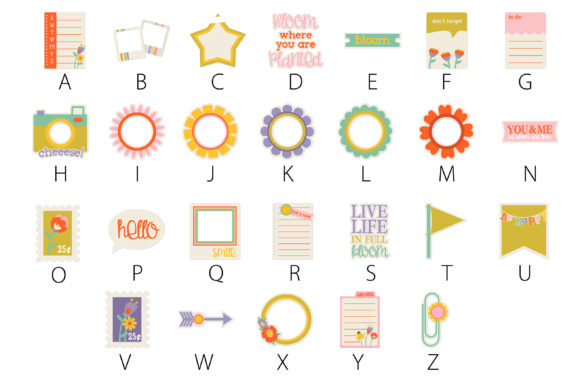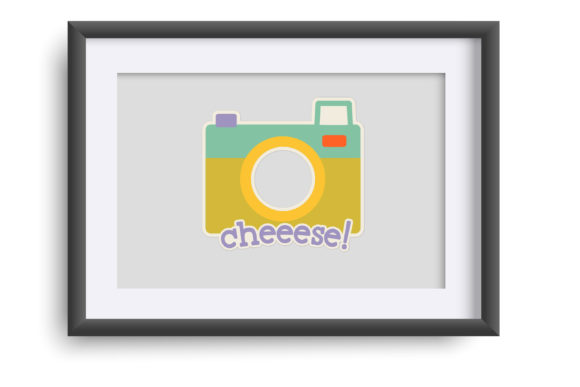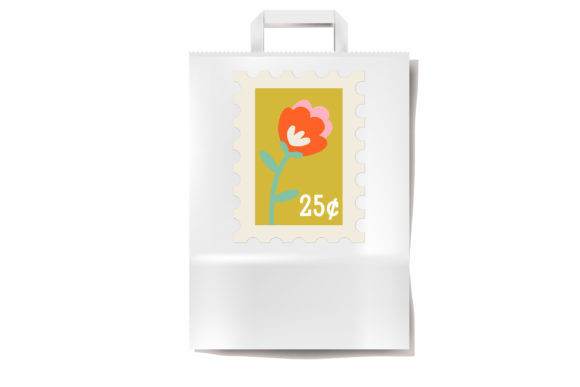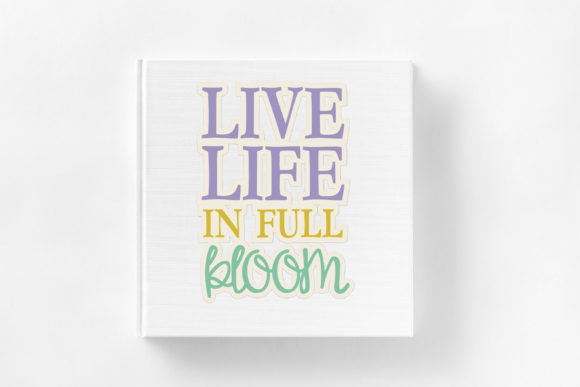
Bloomies Notes Font: Elevate Your Designs with Journaling Elements
Are you a designer or crafter looking for a unique and creative way to add a personal touch to your projects? Look no further than the Bloomies Notes Font, a full-color dingbat font that features journaling elements to match the popular Bloomies full-color dingbat. In this article, we’ll explore the features and benefits of this exciting font, and provide tips on how to get started with using it in your designs.
What is Bloomies Notes Font?
Key Features of Bloomies Notes Font
- Full-color dingbat font: Bloomies Notes Font is a full-color dingbat font, which means that it features a range of colorful design elements that can be used to add visual interest to your projects.
- Journaling elements: The font features a range of journaling elements, including notes, icons, and other design elements that can be used to add a personal touch to your projects.
Tips for Using Bloomies Notes Font
Here are a few tips for using Bloomies Notes Font in your designs:
- Use it for journaling: The journaling elements in Bloomies Notes Font make it perfect for adding a personal touch to your journal pages or scrapbook layouts.
- Add a pop of color: The full-color design elements in Bloomies Notes Font can add a pop of color to your designs, making them more visually interesting.
Bloomies Notes Font is a unique and creative font that can add a personal touch to your designs. With its full-color dingbat font and journaling elements, it’s perfect for designers and crafters who want to add a pop of color and interest to their projects. By following the tips outlined in this article, you can get started with using Bloomies Notes Font in your designs and take your creativity to the next level.